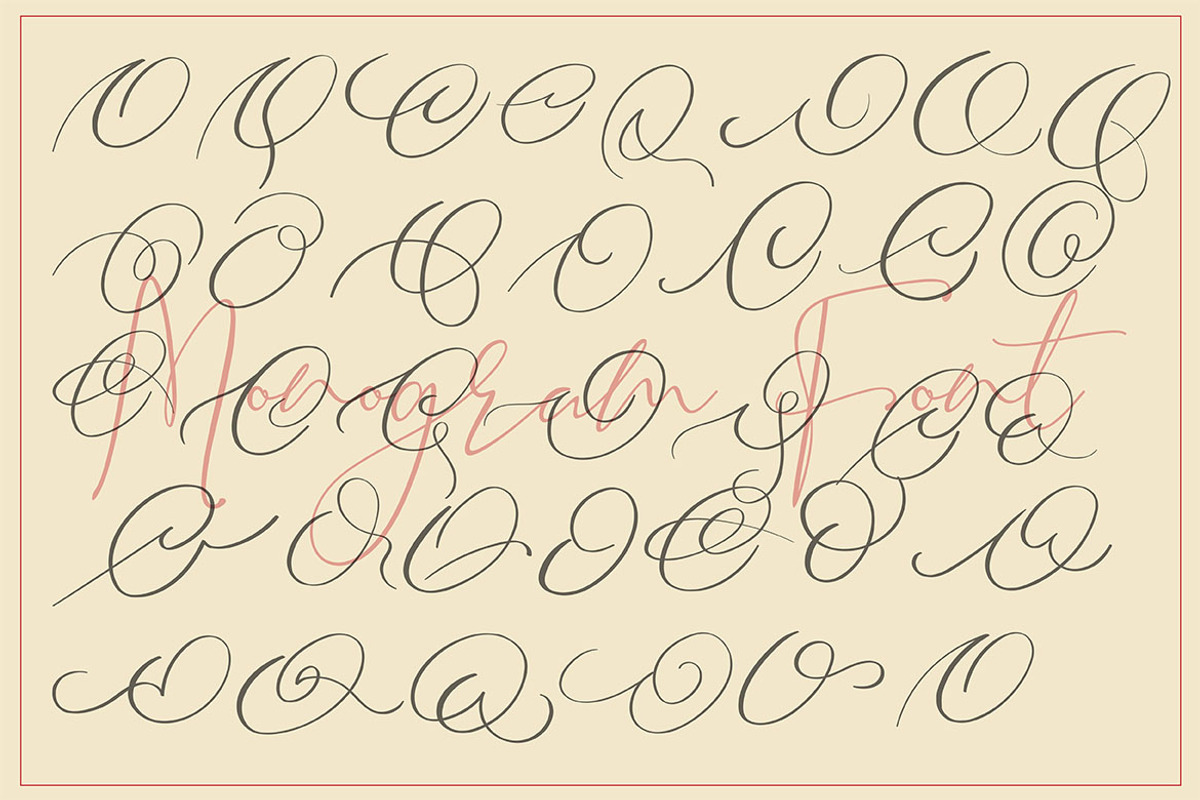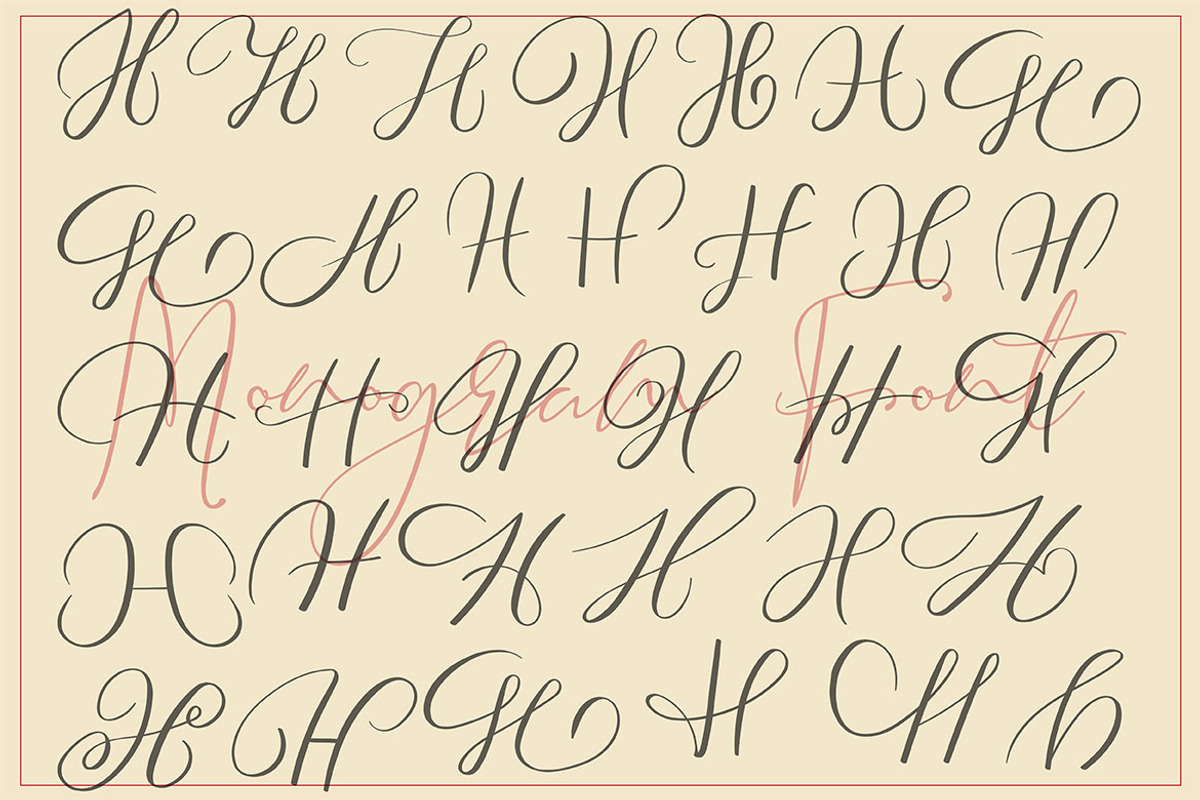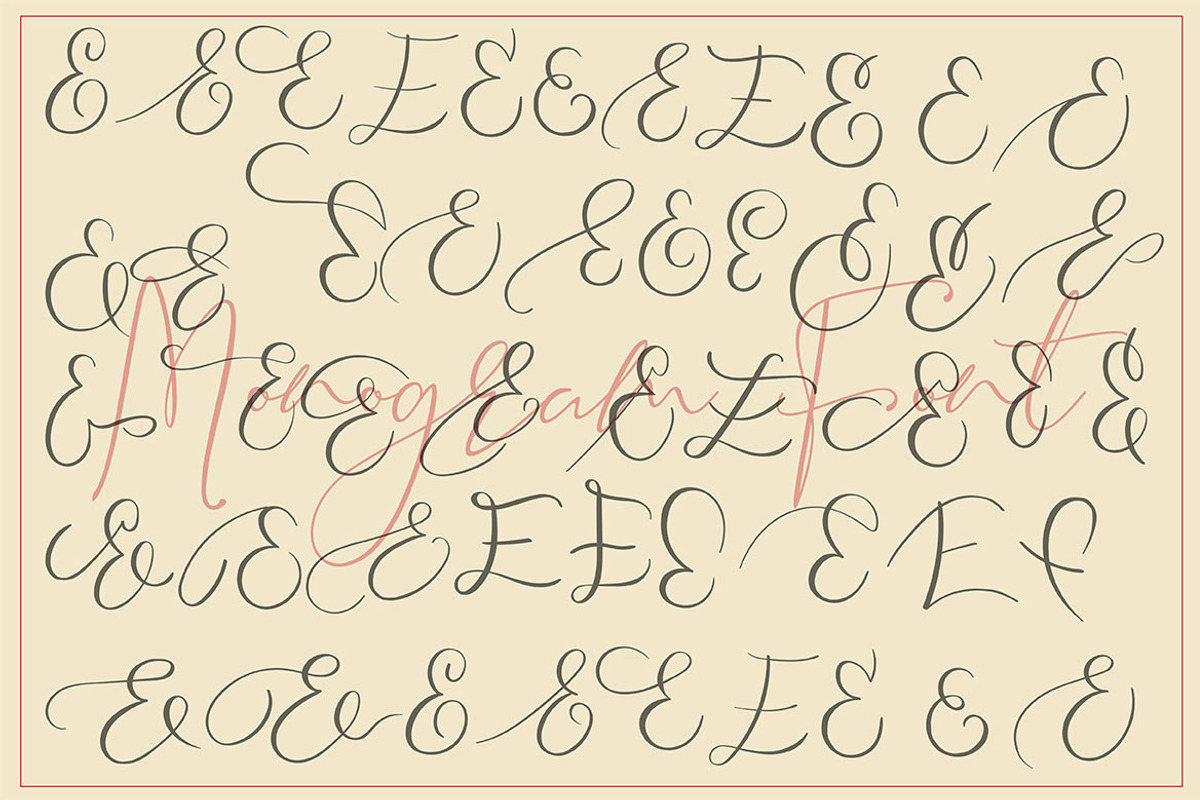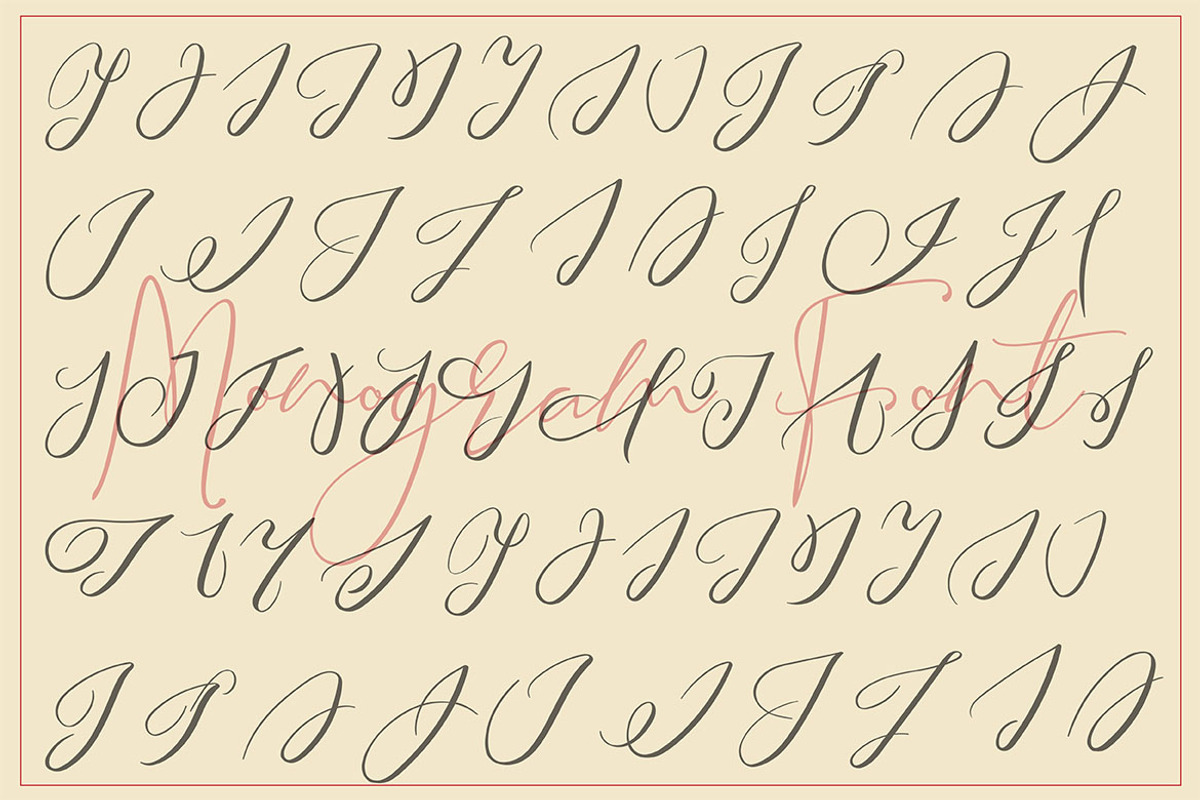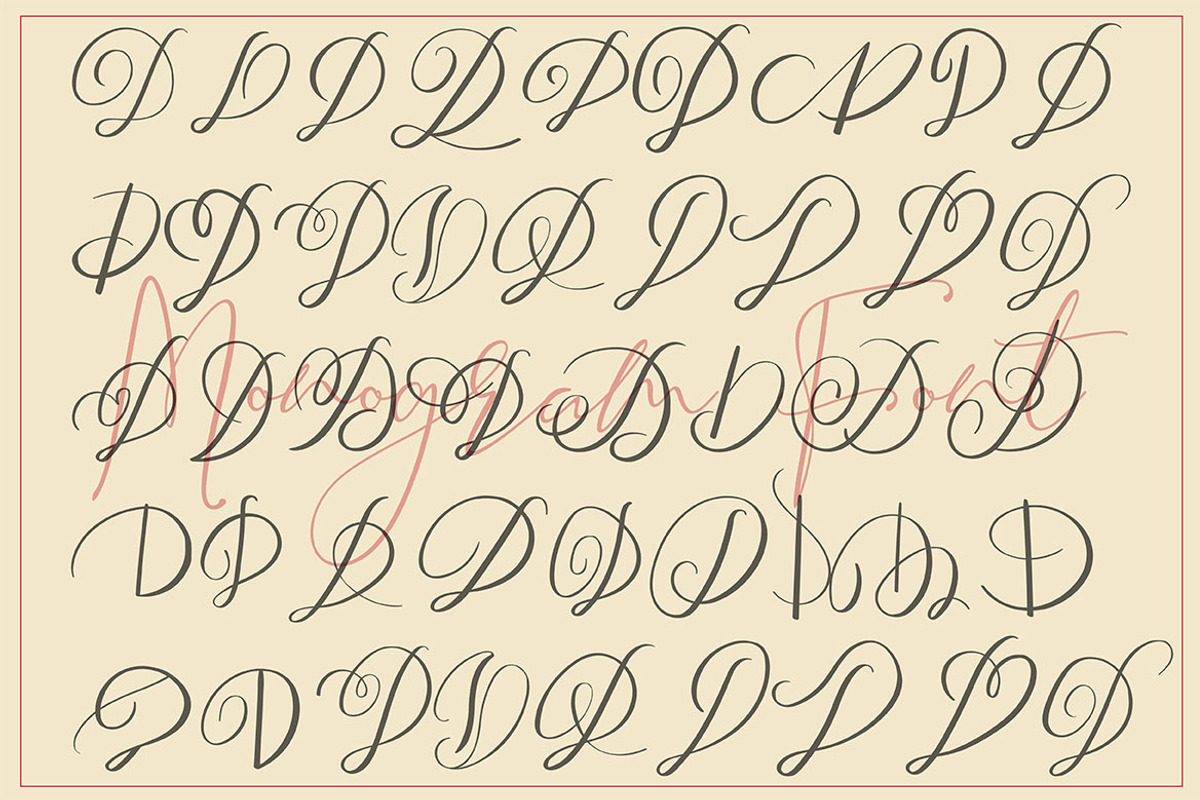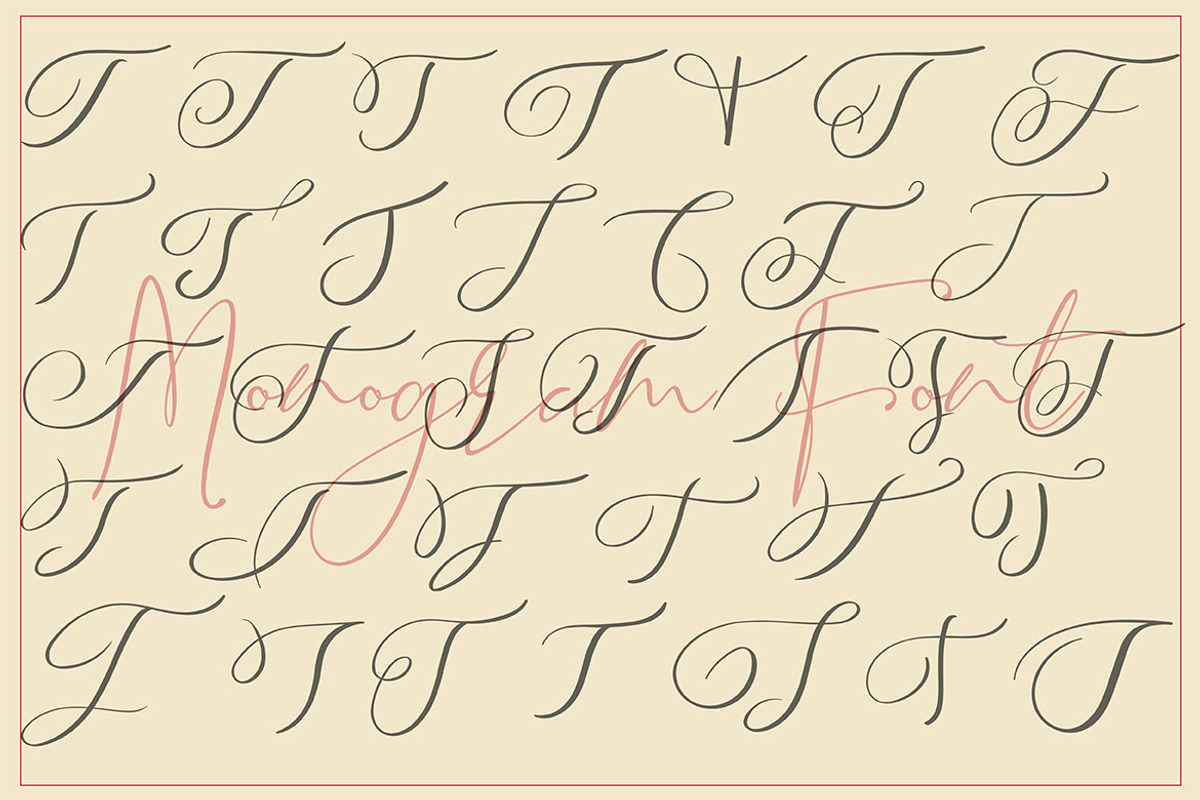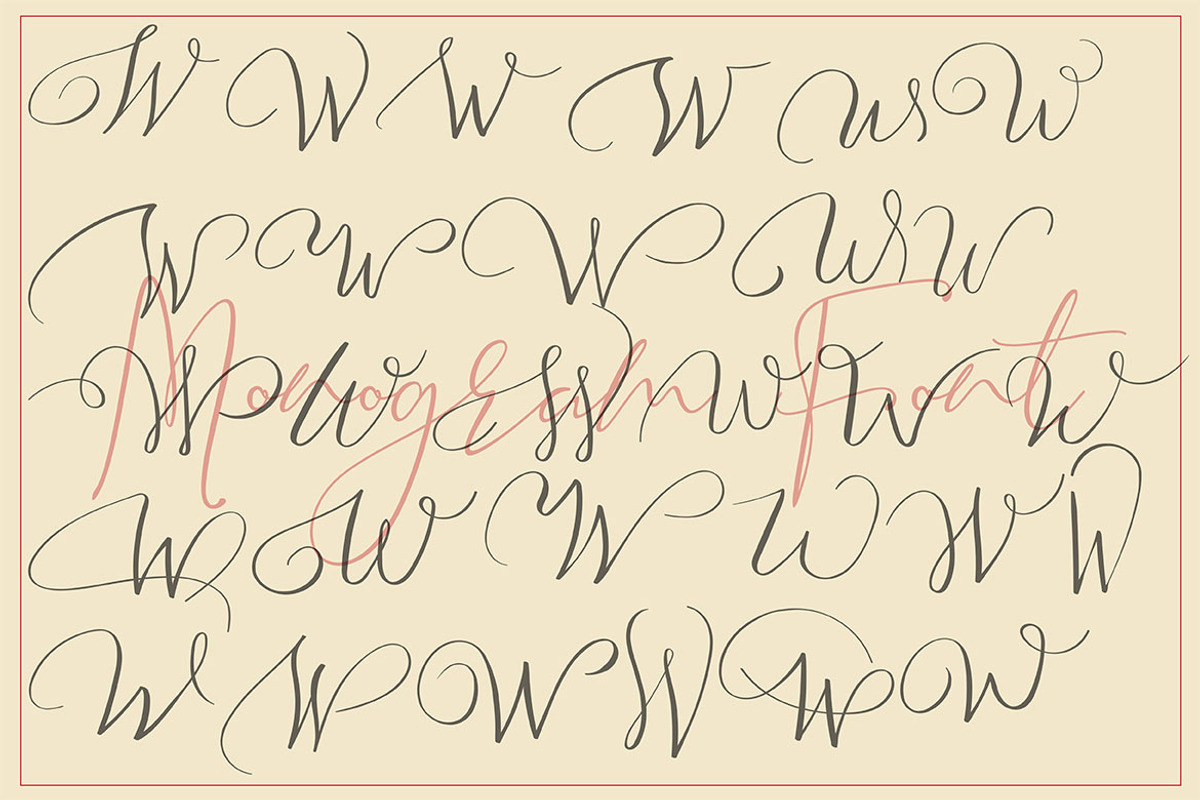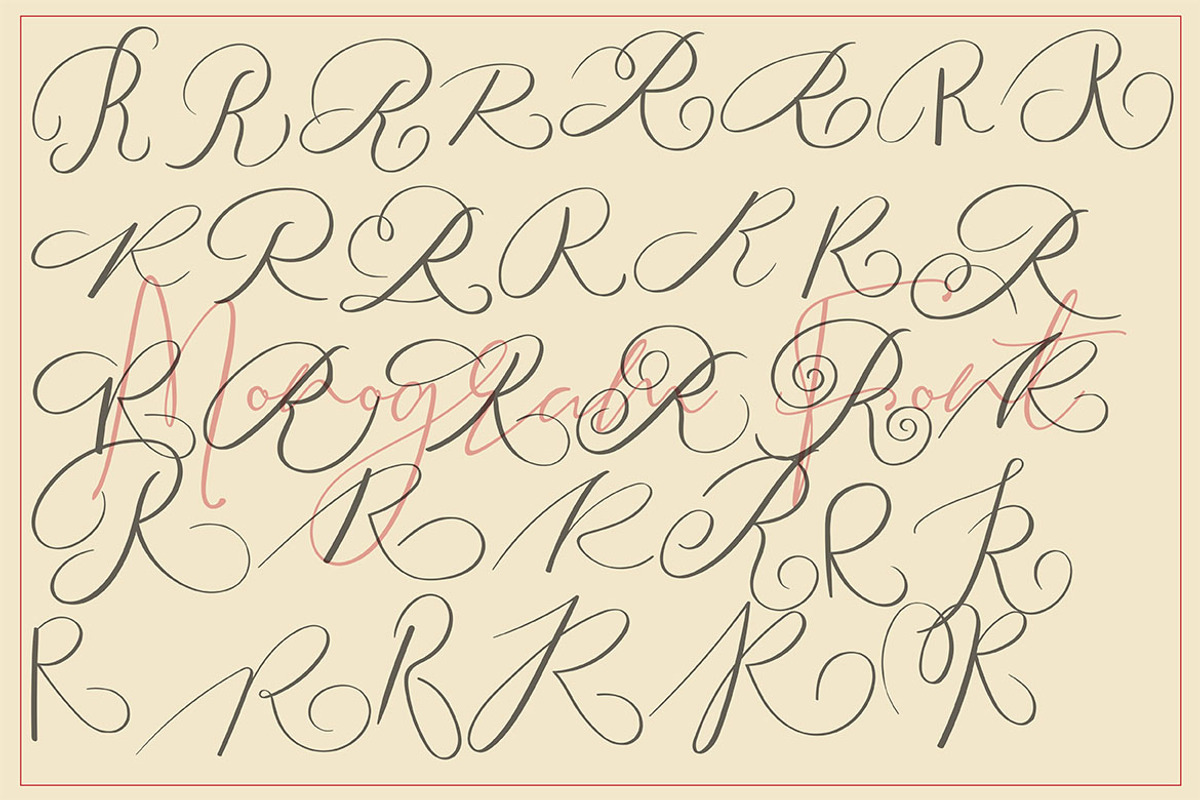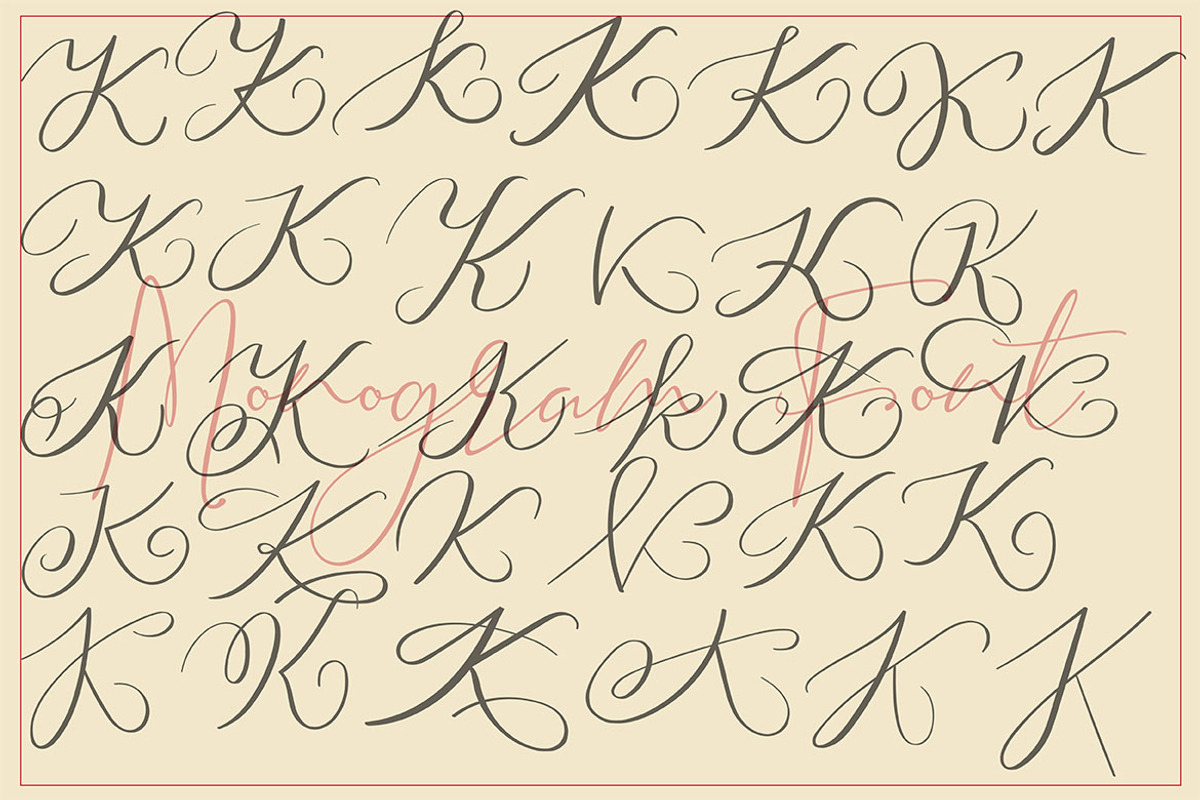
MONOGRAMS BUNDLE A to Z
This is Incredible MONOGRAMS BUNDLE PACK FROM A to Z. 29 fonts containing a total of +1000 are more individual capital letters. Perfect for t-shirt designs, branding, logos, invitations, headers, or design projects with initials.
This is not for writing words or sentences, but for monograms. Font bonus that contains the uppercase, lowercase and AMPERSAND to support it.